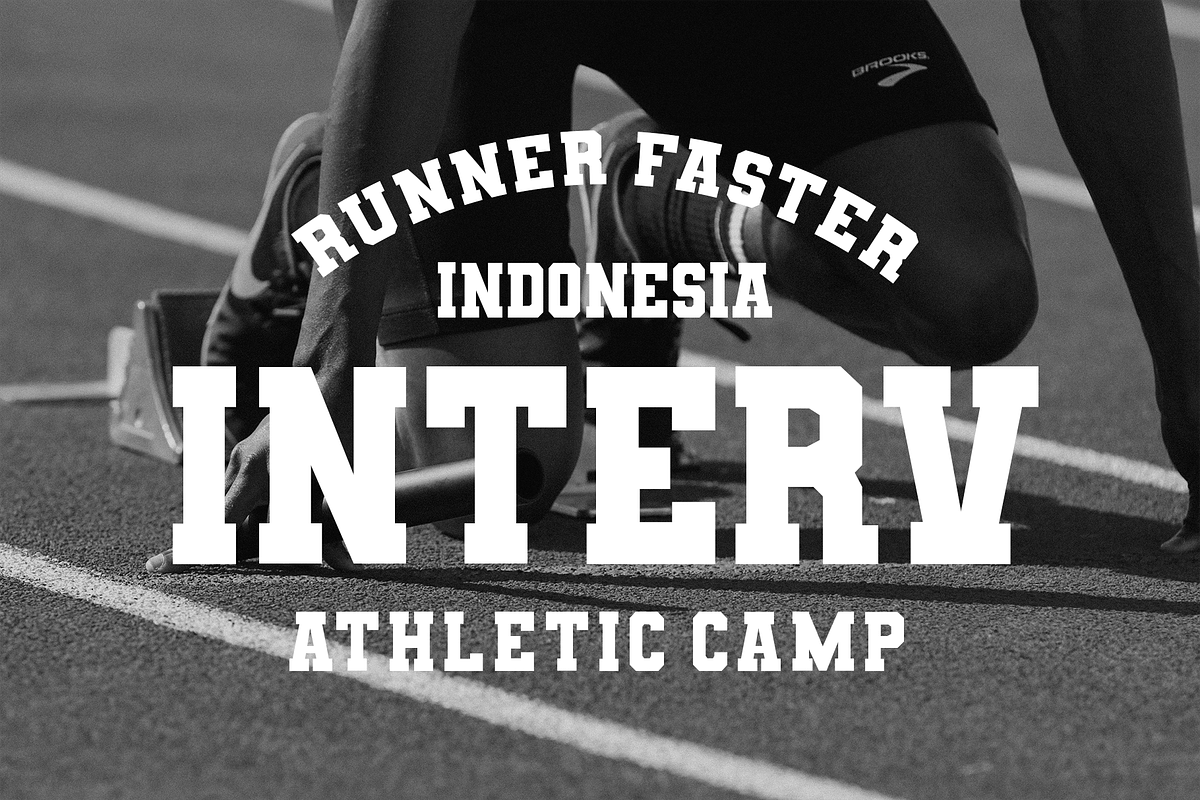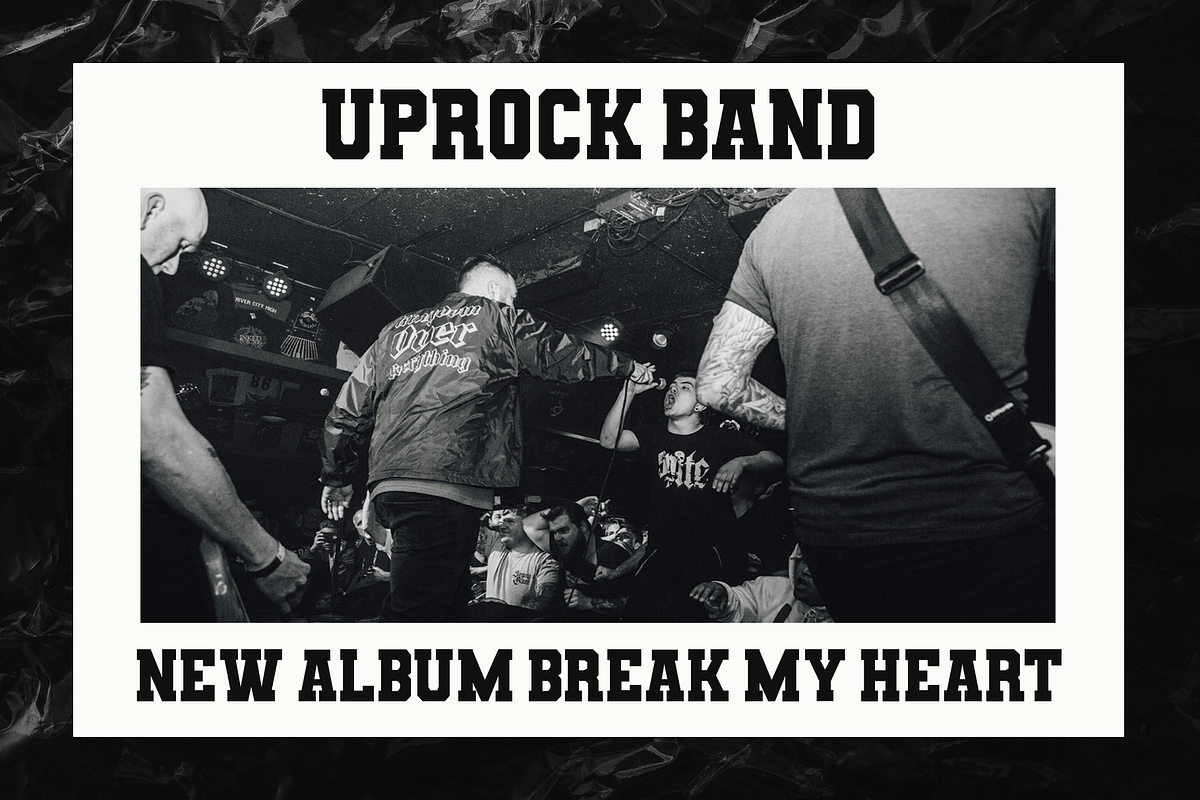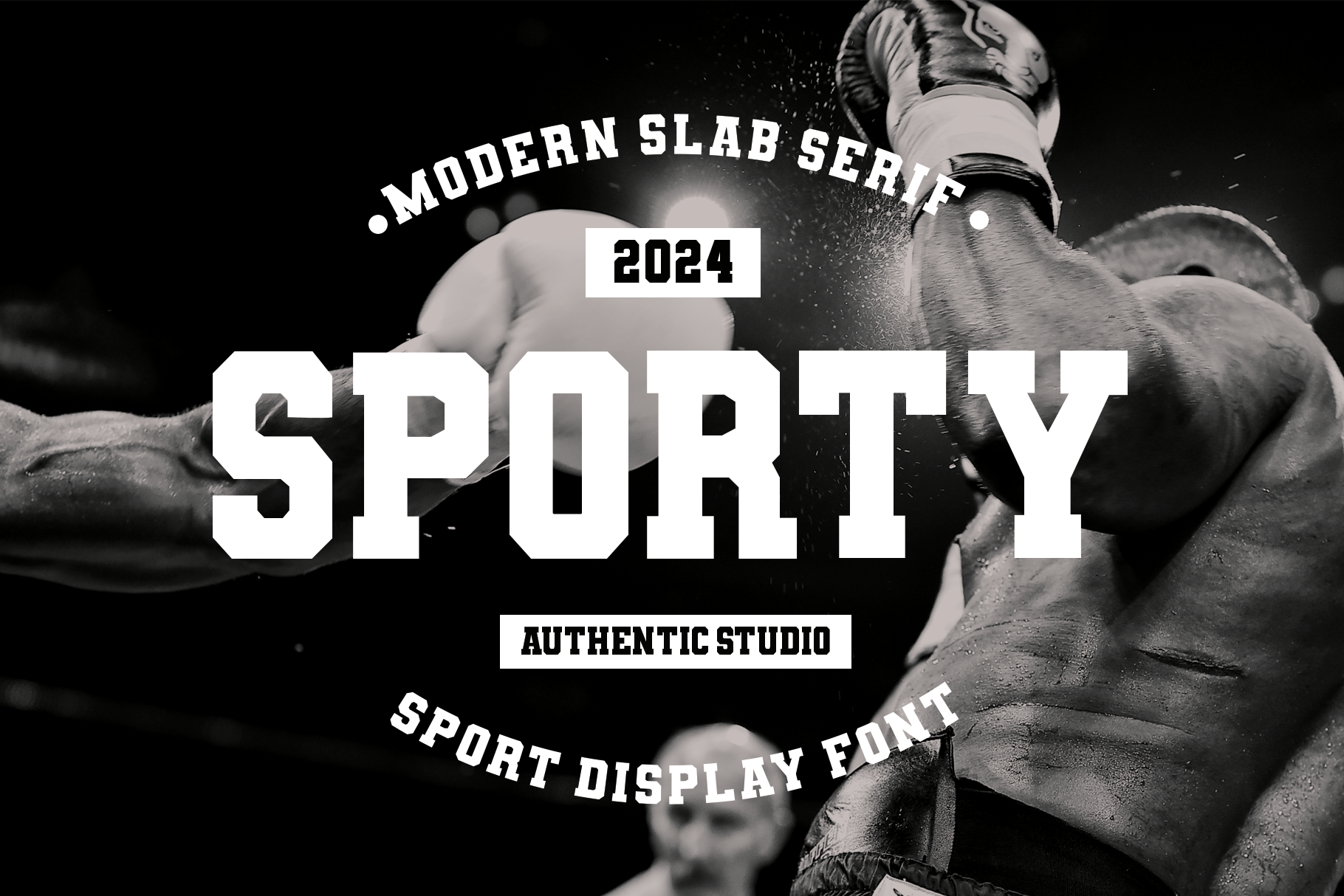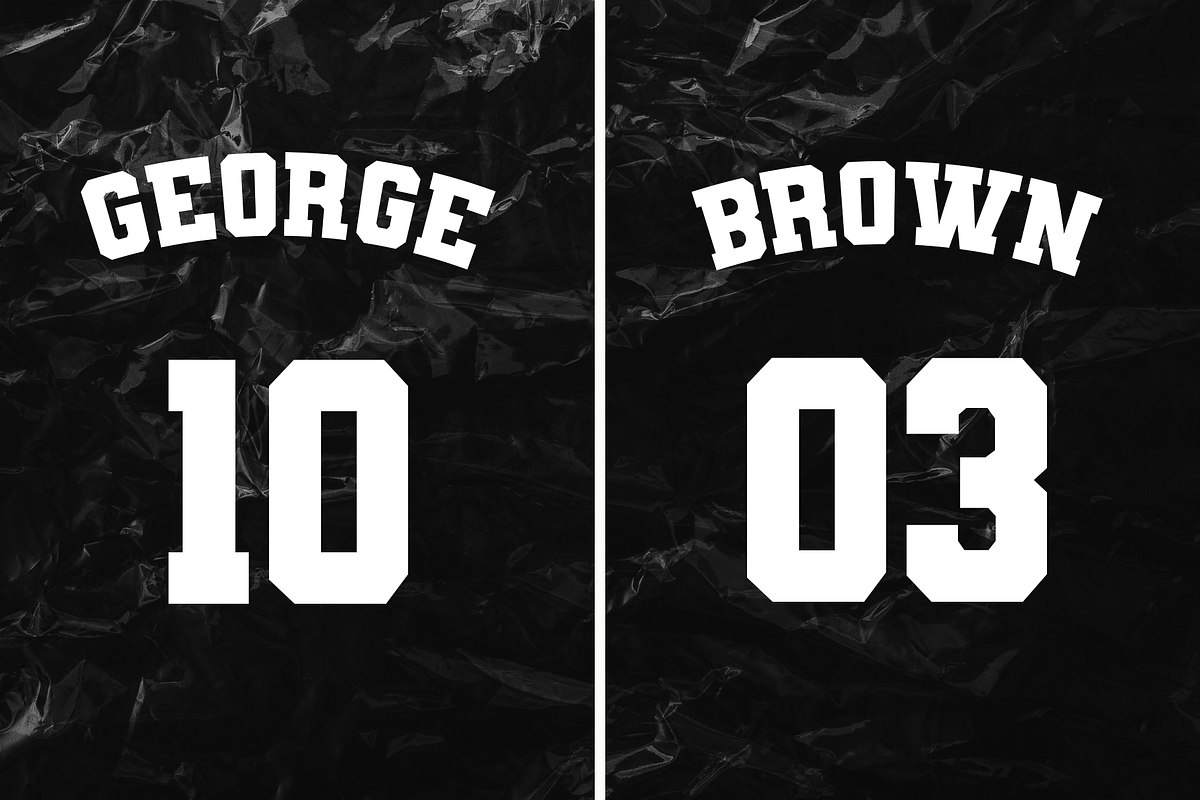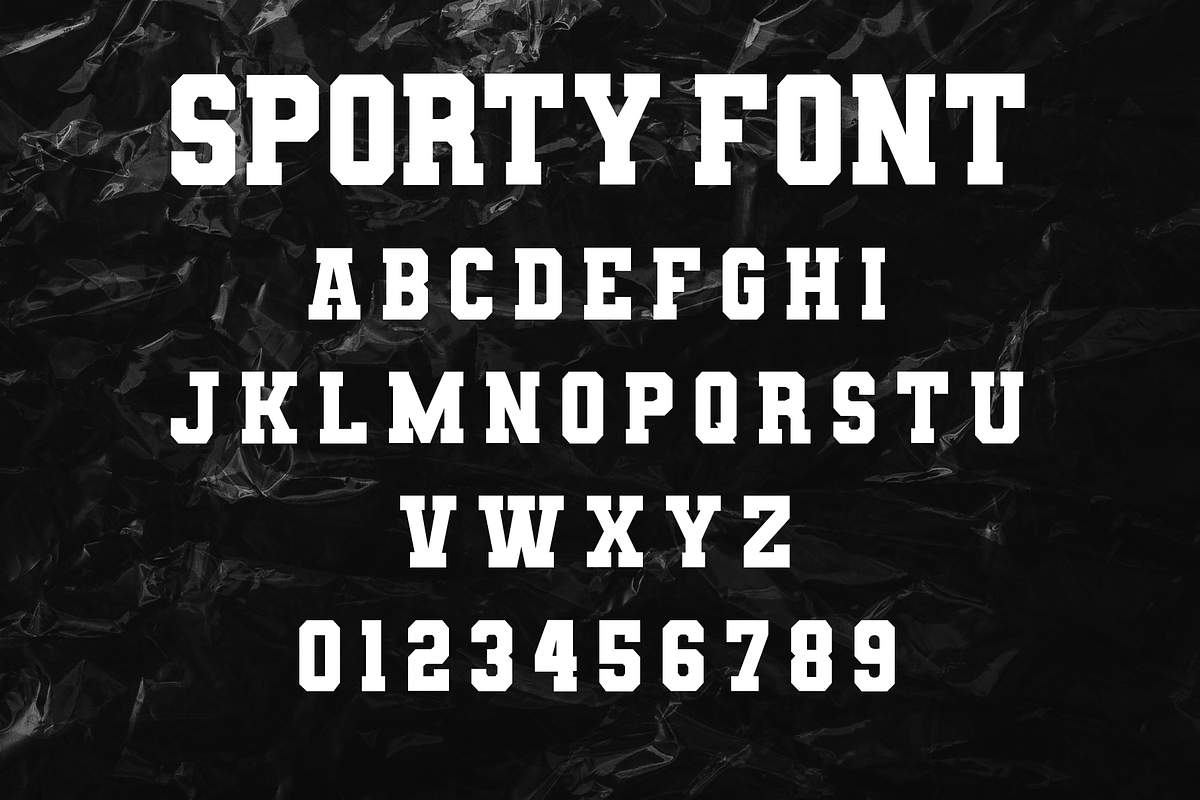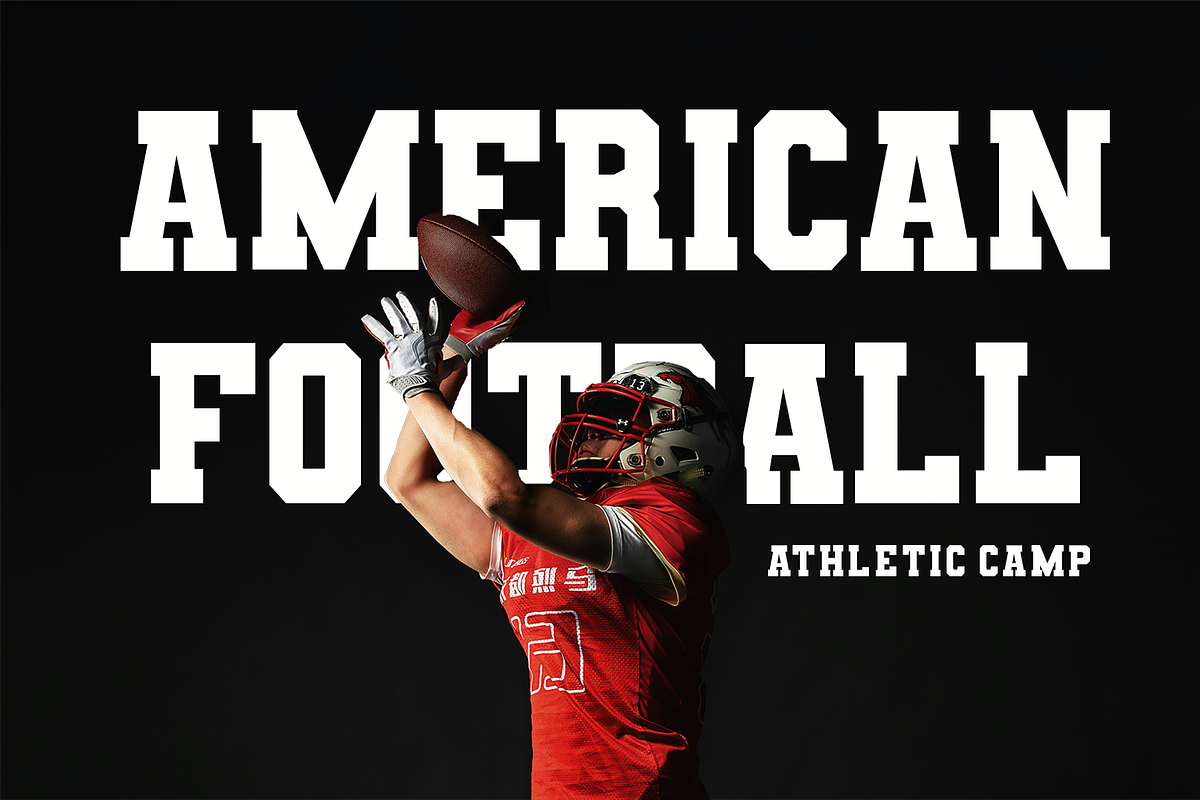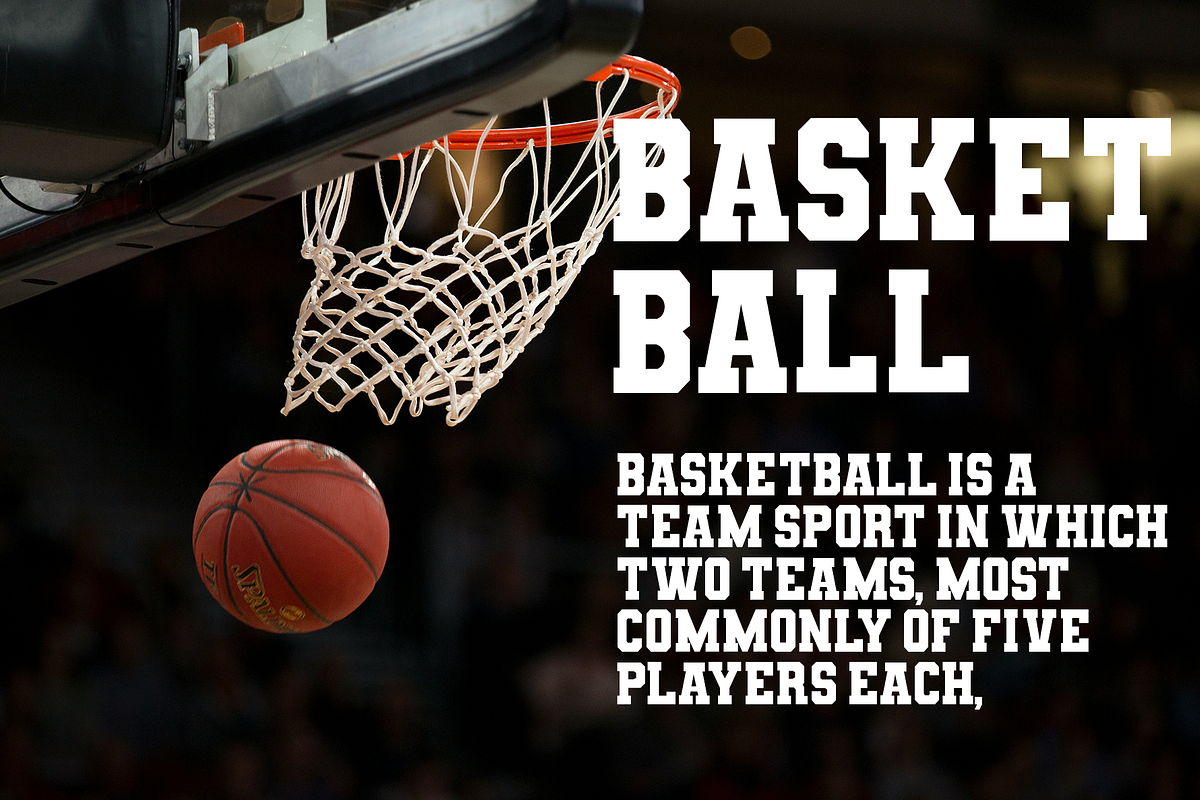
Sporty Varsity Font
Sporty Varsity slab serif inspired by sporty design, vintage style with a touch of classic style. There are styles that you can apply in your design projects. This font is built with solid foundations, strong visuals, old-school movement, and a modern minimalist style.